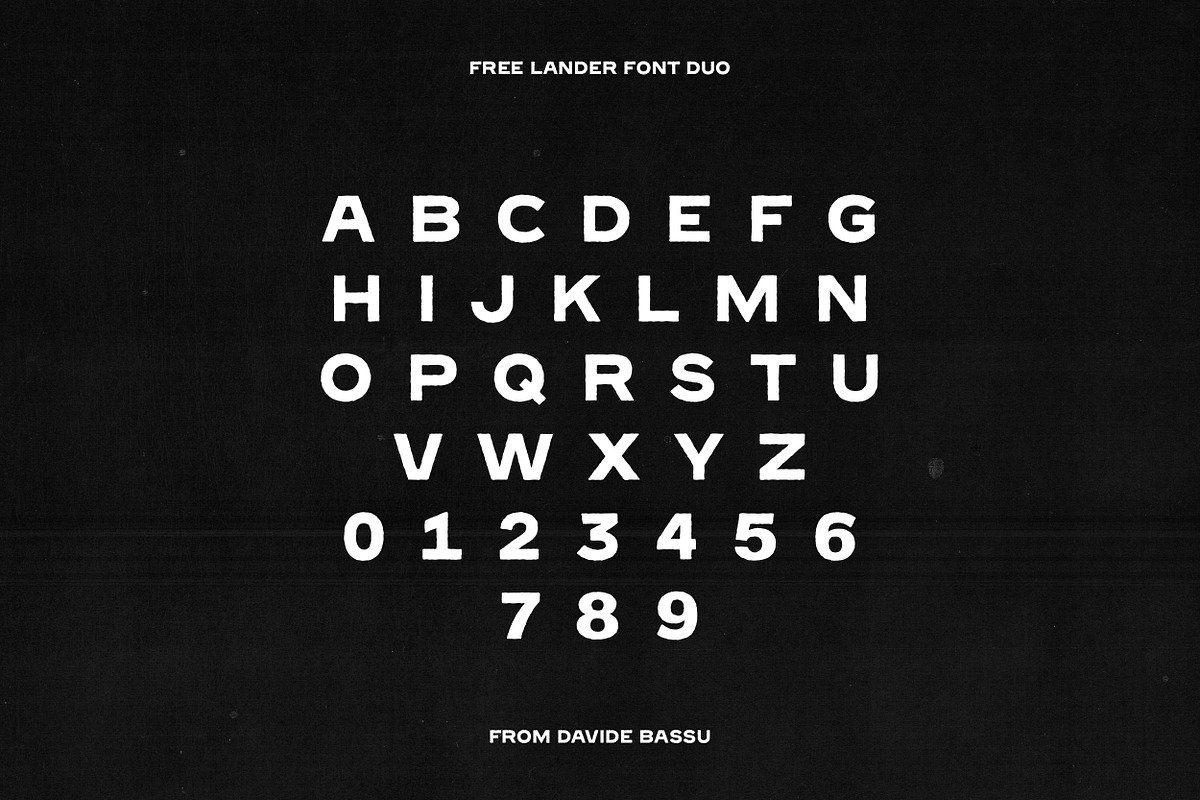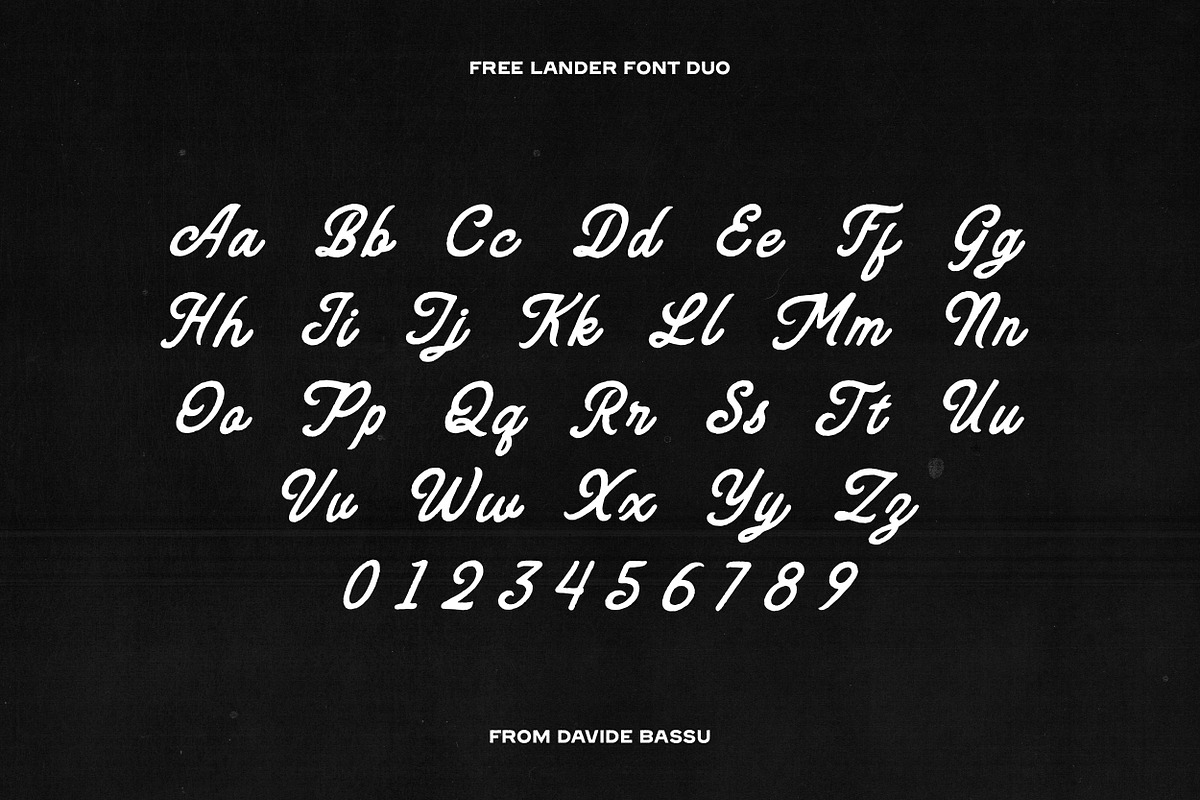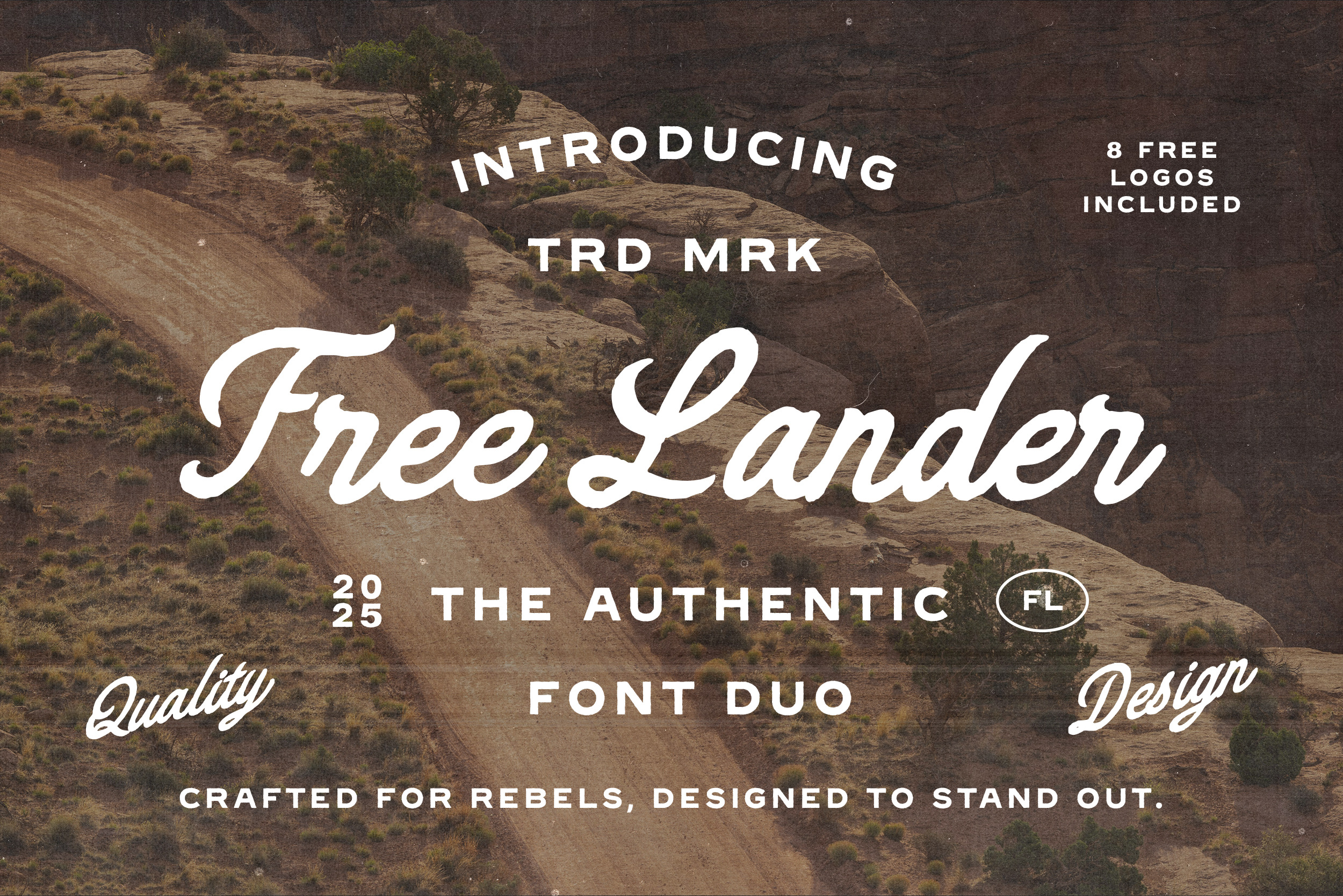
Free Lander - Font Duo + Extra
Meet Free Lander – Font Duo. A raw, handcrafted script meets a rugged handmade sans, built to give your designs grit, soul, and style.
From logos and apparel to packaging, posters, and bold branding, this duo is made to stand out. The flowing script brings movement and attitude, while the rustic sans grounds your design with strength and clarity.
Crafted with a rebellious vintage edge, Free Lander is more than just a font duo—it’s a statement for creators who want their work to feel authentic, adventurous, and unforgettable.